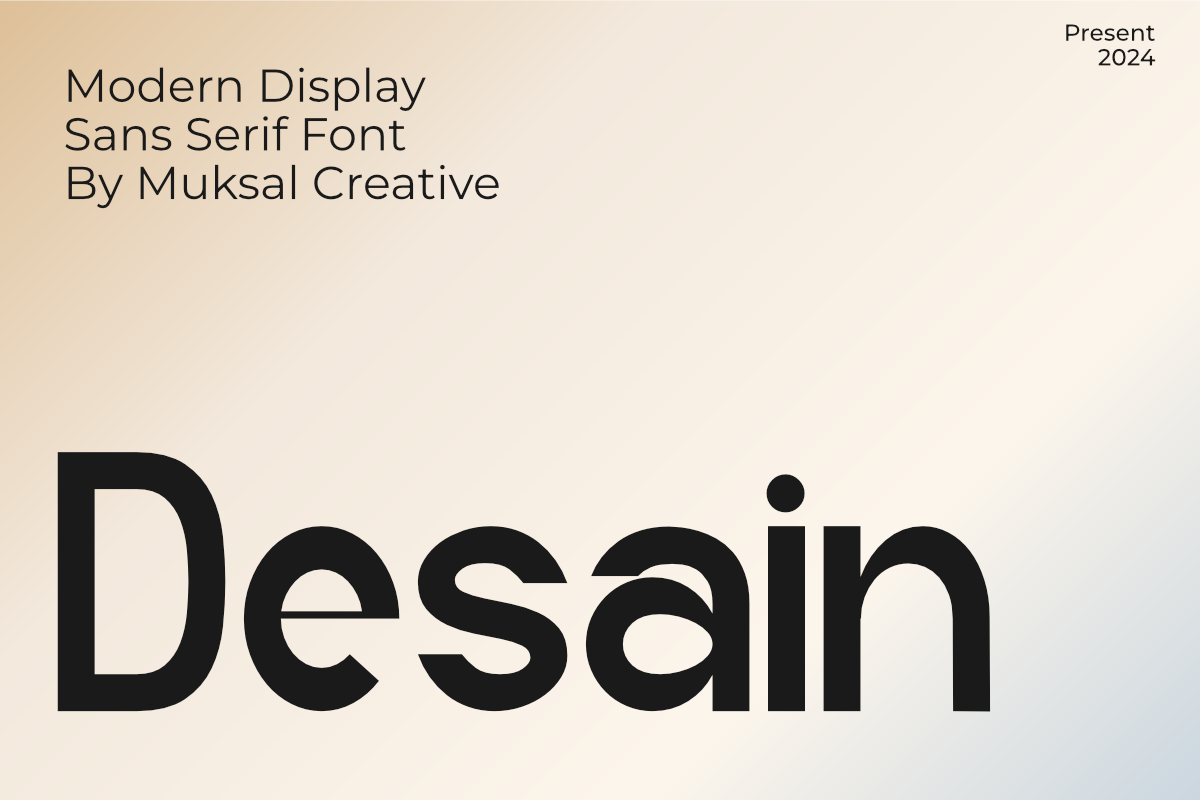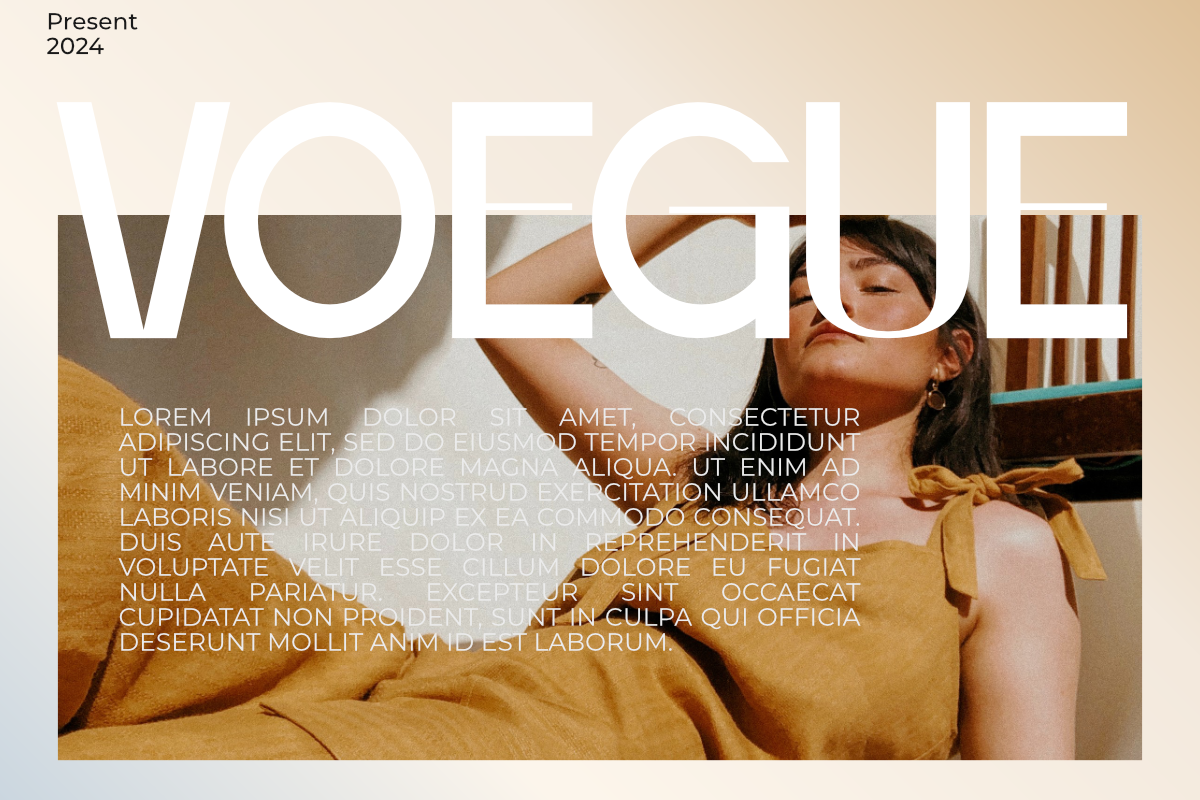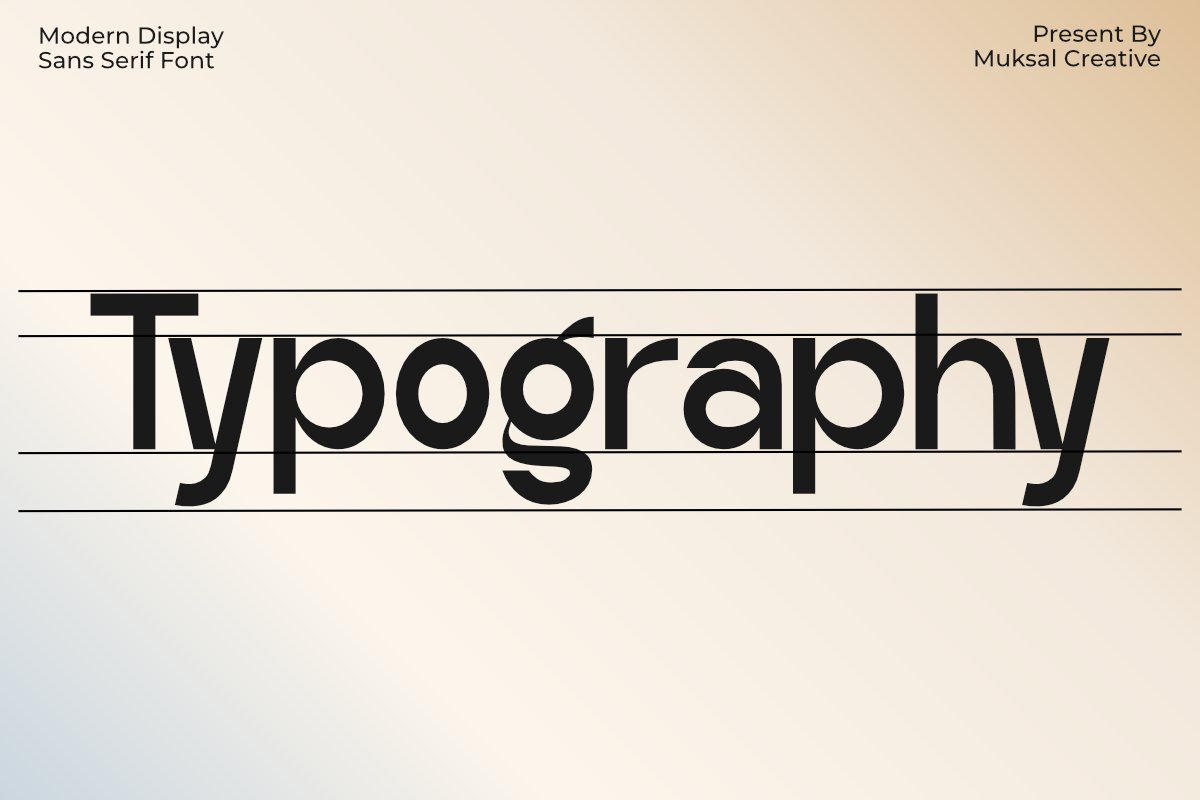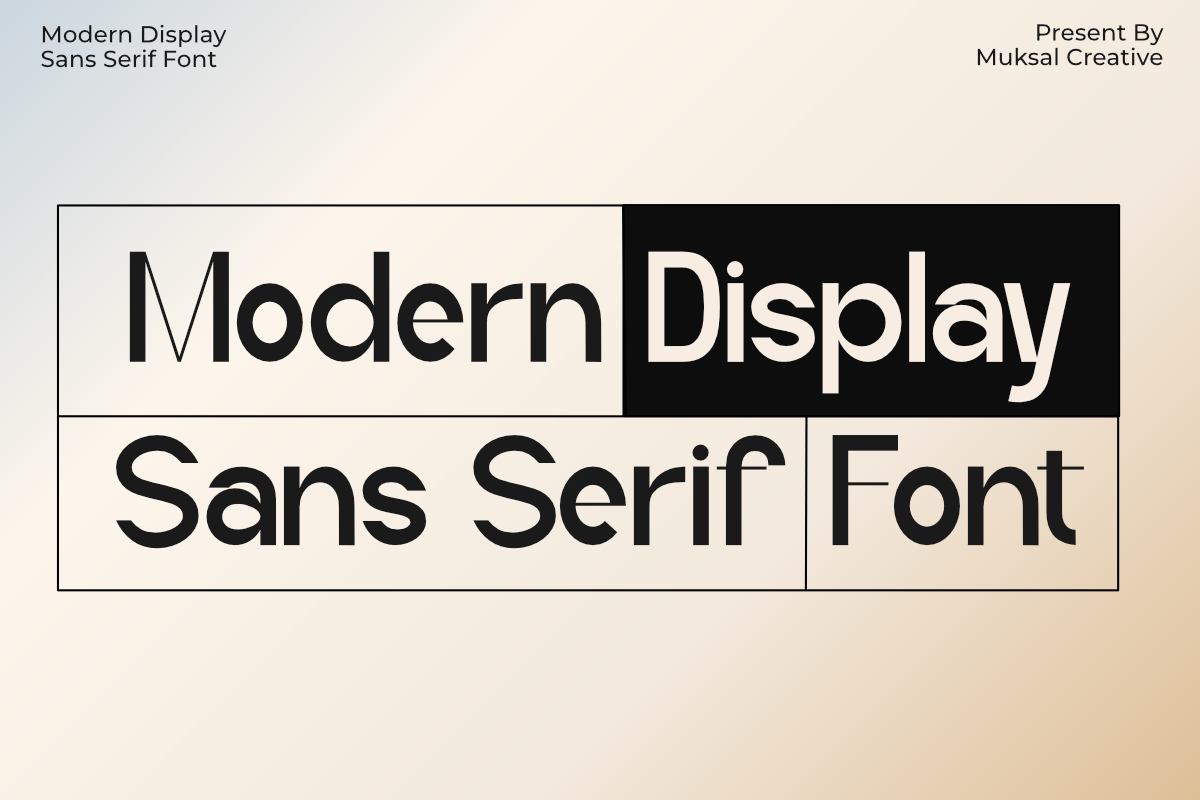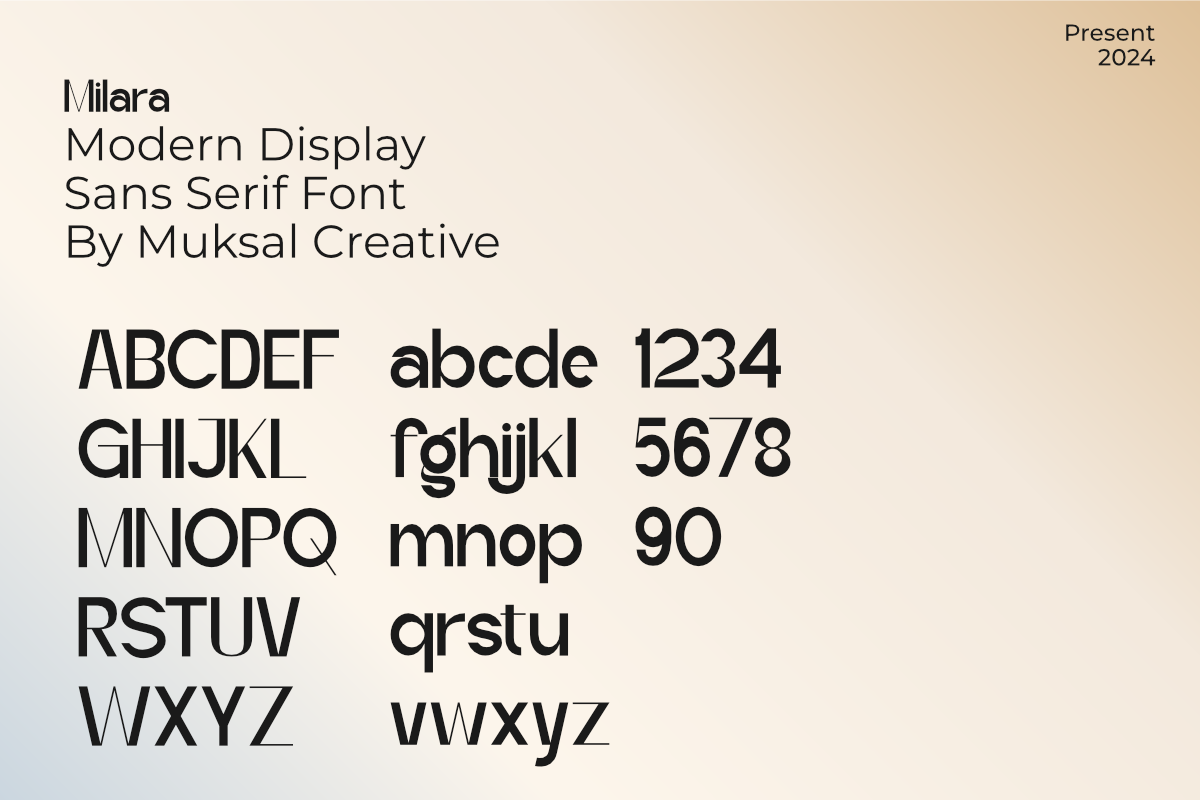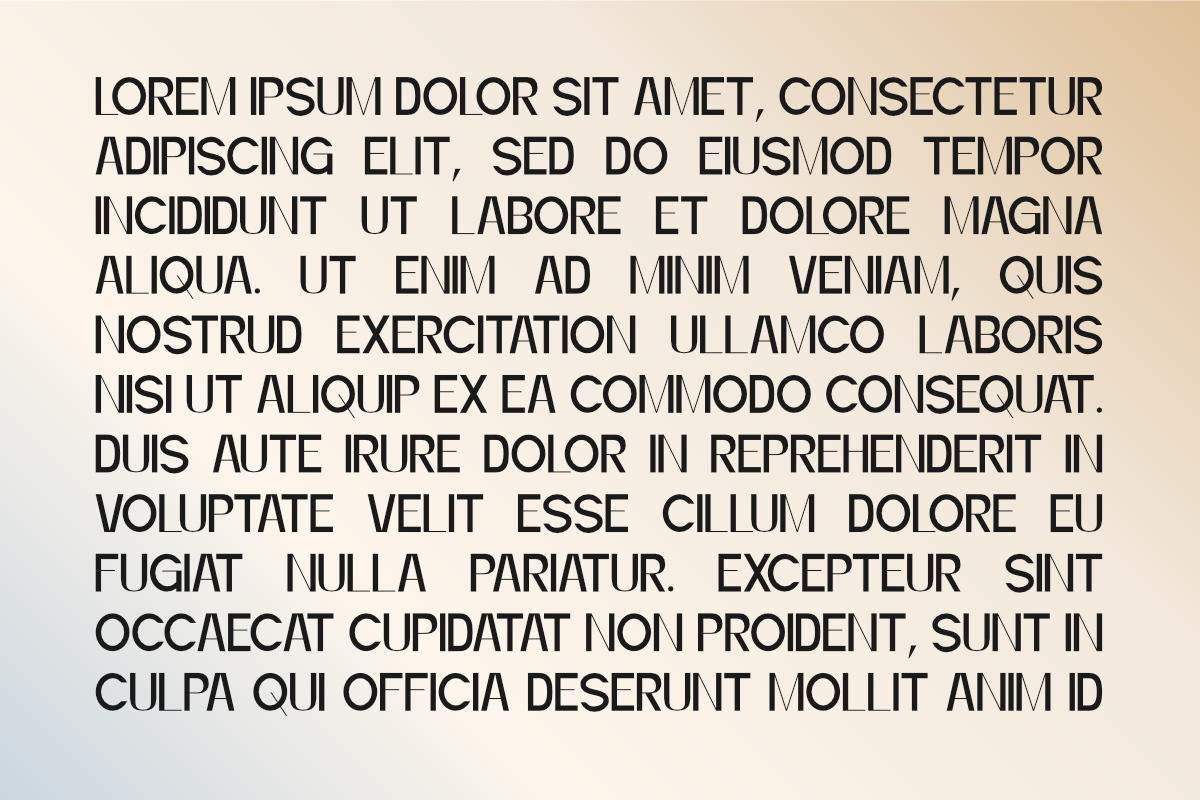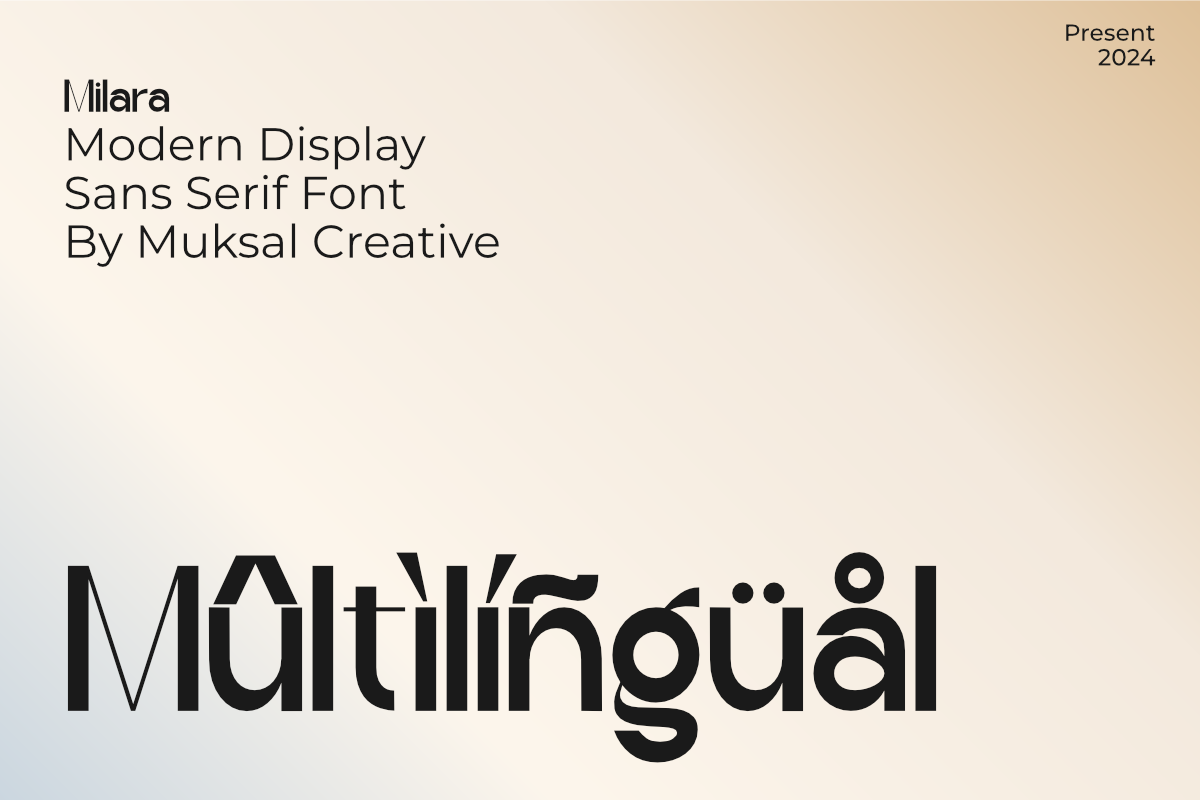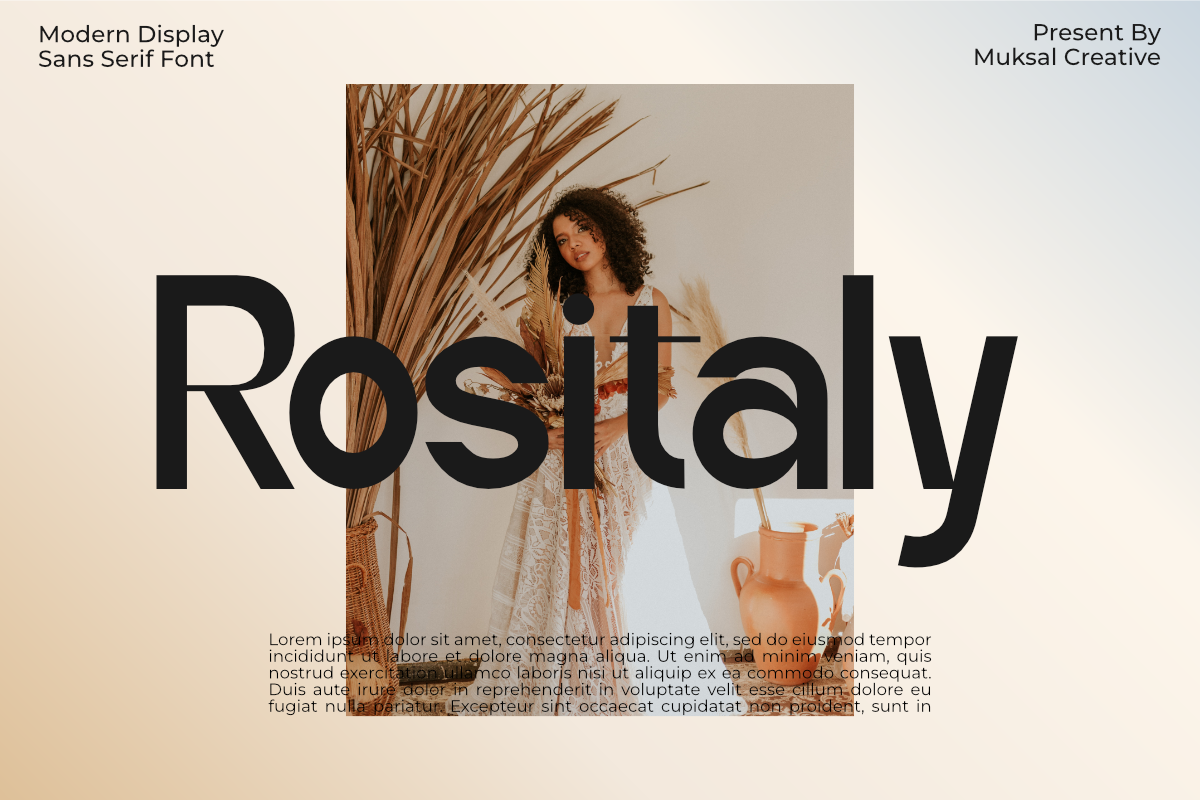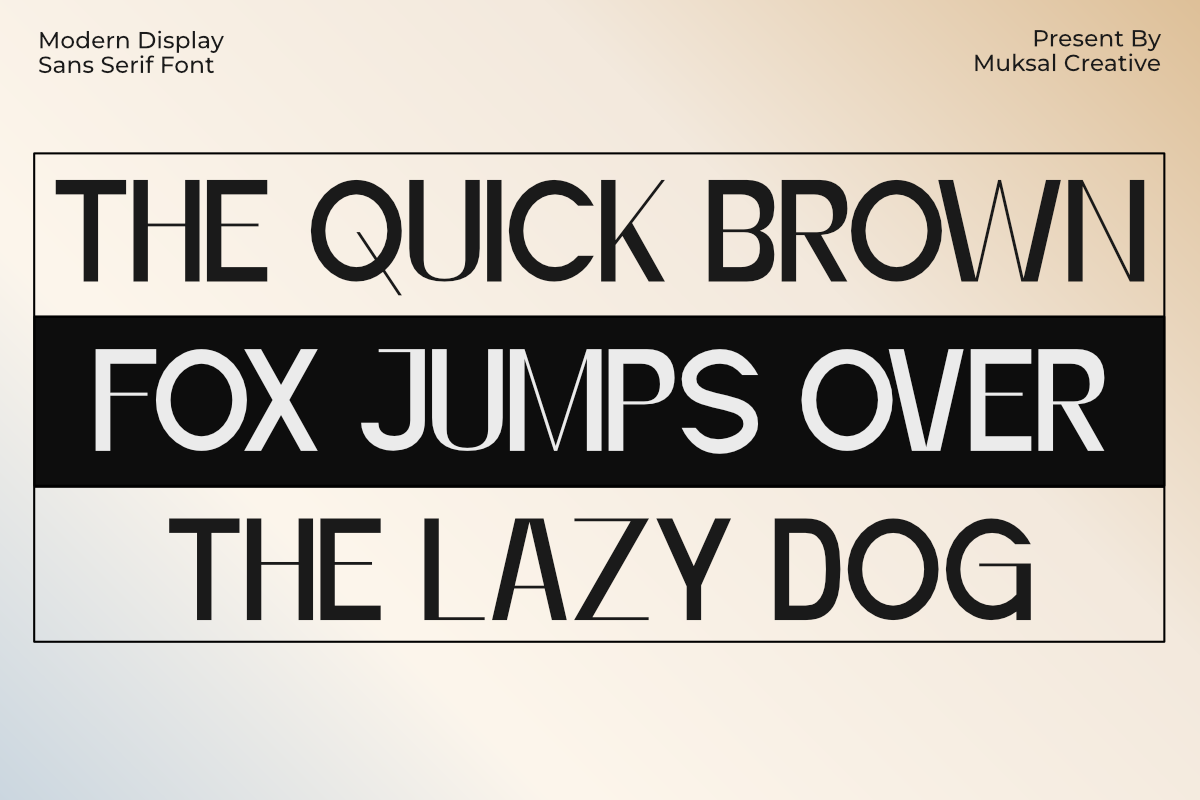
Milara
Milara is an elegant and formal typeface, designed to evoke a sense of luxury and professionalism in every use. With its balanced proportions and smooth letterforms, Milara brings a modern feel that’s perfect for various design projects, including branding, editorials, or formal invitations.
Its clean lines and bold yet refined shapes make it ideal for both large headlines and smaller text. Milara offers versatility and sophistication, making it an excellent choice for designers seeking a touch of class.